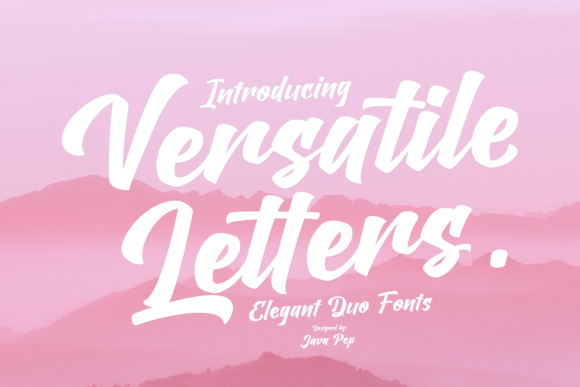
Versatile Letters Duo Script: A Font That Adapts to Your Vision
Designing for a modern audience requires more than just aesthetics—it demands versatility, clarity, and a touch of elegance. Versatile Letters Duo Script is a font family that meets these needs with its elegant, fresh, and modern duo script style. Whether you're creating a logo, crafting social media content, or designing product packaging, this font offers the flexibility and sophistication needed to elevate your work. Its PUA encoding ensures easy access to glyphs and swashes, making it a powerful tool for designers and creators alike.
Elegant Simplicity for Modern Design Needs
The Versatile Letters Duo Script font stands out for its clean lines and balanced curves, which combine to create a look that feels both professional and approachable. Unlike overly ornate scripts that can feel outdated or hard to read, this font maintains legibility while still delivering a sense of refinement. This makes it ideal for use in headlines, titles, and other prominent text elements where readability is key.
Its dual script style allows for creative expression without sacrificing usability. You can mix and match the two styles within the same design to add visual interest and depth. For example, using one script for the main headline and another for subheadings can help guide the reader's eye through the content in a natural way.
Practical Benefits Across a Range of Projects
Versatile Letters Duo Script is not just about looks—it’s about practicality. The font’s wide range of applications means it can be used across multiple design scenarios. Here are some specific examples of how it can enhance your projects:
- Logo Design: A well-designed logo should be memorable and adaptable. With Versatile Letters Duo Script, you can create a logo that feels both modern and timeless, suitable for print and digital use.
- Social Media Posts: Capturing attention on platforms like Instagram or Facebook often depends on visual appeal. Using this font in captions or promotional text adds a stylish edge that resonates with audiences.
- Product Packaging: Stand out on store shelves with packaging that reflects your brand’s personality. The font’s elegant style can be used for product names or taglines, helping to convey quality and craftsmanship.
- Branding Identity: Consistency is crucial in branding. By using Versatile Letters Duo Script across different materials, from business cards to websites, you can maintain a cohesive visual identity.
These use cases demonstrate how the font can be applied in real-world situations to achieve specific goals. It’s not just a decorative element—it’s a strategic design choice that supports communication and brand recognition.
Why Designers and Creators Should Consider This Font
For professionals such as marketers, bloggers, and small business owners, time is often a precious resource. Versatile Letters Duo Script helps streamline the design process by offering a font that works well across various formats and purposes. Its PUA encoding feature simplifies access to special characters and swashes, reducing the need for additional tools or fonts.
Freelancers and entrepreneurs who manage multiple projects benefit from having a font that can adapt to different styles and needs. Whether you're working on a client's branding package or designing a personal website, this font provides a reliable base that can be customized to fit any aesthetic.
Additionally, educators and publishers may find value in using this font for educational materials or publications. Its readability and modern appearance make it suitable for content that needs to be both informative and visually engaging.
Considerations and Limitations
While Versatile Letters Duo Script is highly versatile, it's important to consider whether it fits the tone and purpose of your project. Like any design element, it should align with your brand voice and target audience. For instance, if your brand has a very traditional or formal image, a more classic font might be more appropriate.
It's also worth noting that while the font is excellent for headings and titles, it may not be the best choice for long blocks of body text due to its script nature. In such cases, pairing it with a more readable sans-serif or serif font can provide a balanced and effective layout.
As with any design tool, experimentation is key. Try using Versatile Letters Duo Script in different contexts and observe how it interacts with other elements in your design. This will help you determine when and how to use it most effectively.
Conclusion
Versatile Letters Duo Script offers a unique blend of elegance and functionality that can enhance a wide range of design projects. From logos and headlines to packaging and social media posts, this font provides the flexibility needed to meet diverse creative needs. Its PUA encoding and dual script styles make it an accessible and powerful option for professionals and hobbyists alike.
By choosing Versatile Letters Duo Script, you’re not just selecting a font—you’re investing in a design solution that supports clarity, creativity, and consistency. Whether you're looking to improve your presentation, strengthen your brand identity, or simply bring more visual interest to your work, this font is a valuable addition to your toolkit.